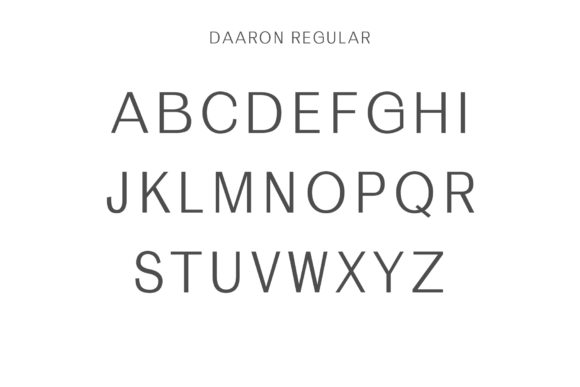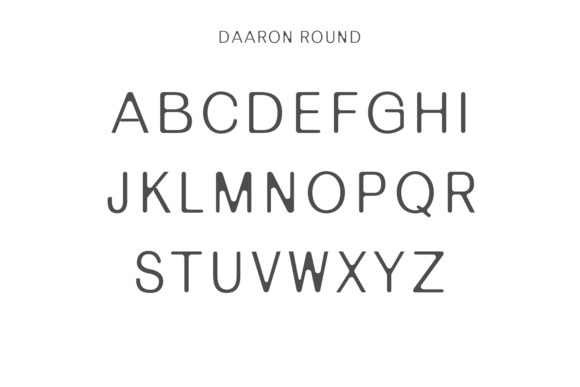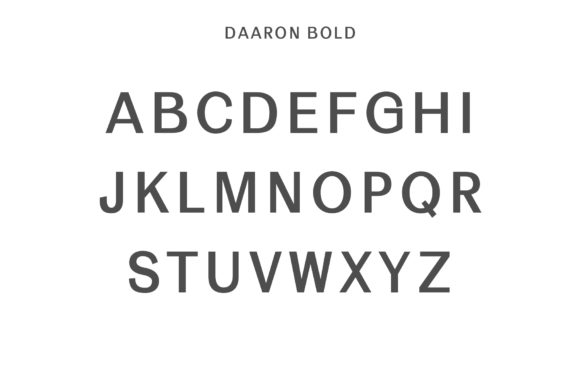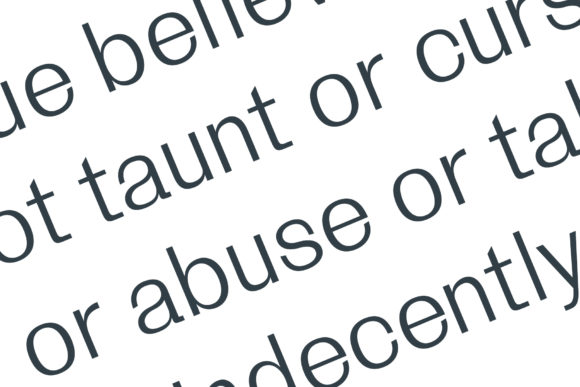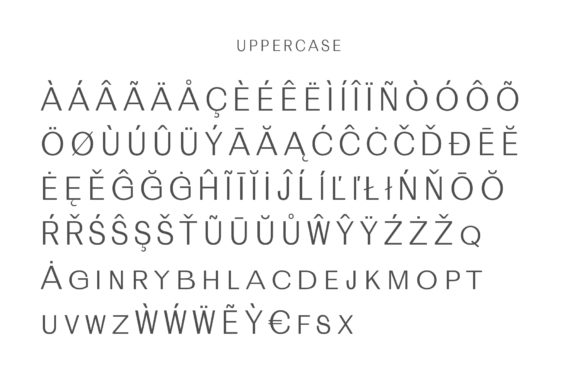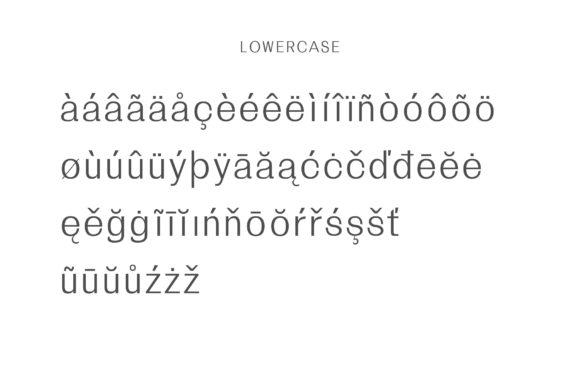
Introducing Daaron Family Font: Elevate Your Designs with Modern Minimalism
In the world of typography, a font can make or break a design project. For designers and crafters seeking a modern and minimalist aesthetic with a unique touch, look no further than the Daaron Family Font. This versatile font family consists of three weights – Regular, Round, and Bold – each carefully crafted to bring a touch of sophistication and elegance to any design.
The Essence of Daaron Family Font
Daaron Family Font embodies the perfect blend of modernity and minimalism. Its clean lines, simple shapes, and uncluttered design make it an ideal choice for designers who appreciate the beauty of simplicity. The font’s unique touch sets it apart from more traditional minimalist fonts, offering a distinctive look that can elevate a wide range of design projects.
Key Features of Daaron Family Font
- Modern and Minimalist Design: Daaron’s sleek and straightforward design ensures that your message is conveyed clearly and effectively, without unnecessary distractions.
- Three Versatile Weights: The font comes in three weights – Regular, Round, and Bold – providing flexibility for various design applications. Whether you need a subtle, understated look or a bold statement, Daaron Family Font has got you covered.
- Unique Touch: What sets Daaron apart is its unique design elements that add a touch of personality to your designs. This subtle uniqueness can make a significant difference in creating a memorable brand identity or design piece.
- High Versatility: From digital interfaces and branding to print materials and crafts, Daaron Family Font is highly versatile. Its adaptability makes it a valuable asset for any designer or crafter looking to expand their typography toolkit.
Applications of Daaron Family Font
The applications of Daaron Family Font are vast and varied. Here are a few examples of where this font can make a significant impact:
- Branding and Logo Design: Create a lasting impression with a modern and minimalist logo that stands out. Daaron’s unique touch can help establish a distinctive brand identity.
- Digital Interfaces: Enhance user experience with a clean and readable font that works well across various digital platforms, from websites and mobile apps to software and games.
- Print Materials: Elevate your print designs, including brochures, posters, business cards, and more, with Daaron’s elegant and sophisticated look.
- Crafts and DIY Projects: Add a professional touch to your handmade crafts, journals, planners, and DIY projects with this beautiful font.
Why Choose Daaron Family Font?
Choosing Daaron Family Font for your design projects comes with several benefits:
- Time-Saving: With its versatility and range of weights, you can use Daaron for multiple aspects of a project, saving you time and ensuring consistency.
- Professional Look: Achieve a professional and polished look without the need for extensive design experience. Daaron’s modern and minimalist design inherently possesses a high level of sophistication.
- Unique Designs: Stand out from the crowd with Daaron’s unique touch, ensuring your designs leave a lasting impression on your audience.
Daaron Family Font is a powerful tool for designers and crafters looking to infuse their projects with a modern and minimalist aesthetic. Its unique design, combined with three versatile weights, makes it an excellent choice for a wide range of applications. By incorporating Daaron into your typography arsenal, you can create stunning designs that are both visually appealing and effective in communication. Whether you’re working on a branding project, digital interface, print materials, or crafts, Daaron Family Font is sure to elevate your designs to new heights.